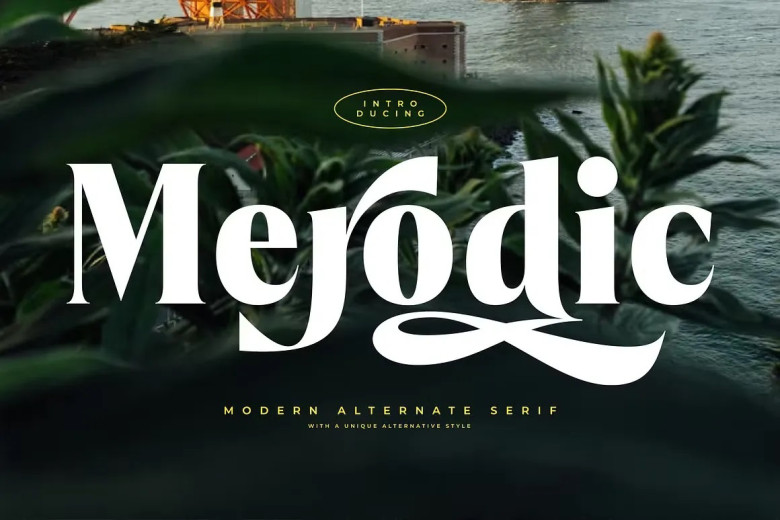
Merodic Font
Merodic is an eye-catching classic-style font perfect for trademarks, headlines, logos and more. Offering Basic Latin Glyphs as well as other fonts which can help create striking designs using it and 64 languages available worldwide it remains traditional yet offers endless communication capabilities; making Merodic an enduring classic font!
Merodic font boasts the Private Use Area (PUA) feature for more customization, offering endless customization possibilities. In the end, this captivating font combines sophistication with vintage design for enhanced artistic achievements that leave a lasting legacy.
Merodic Serif Font